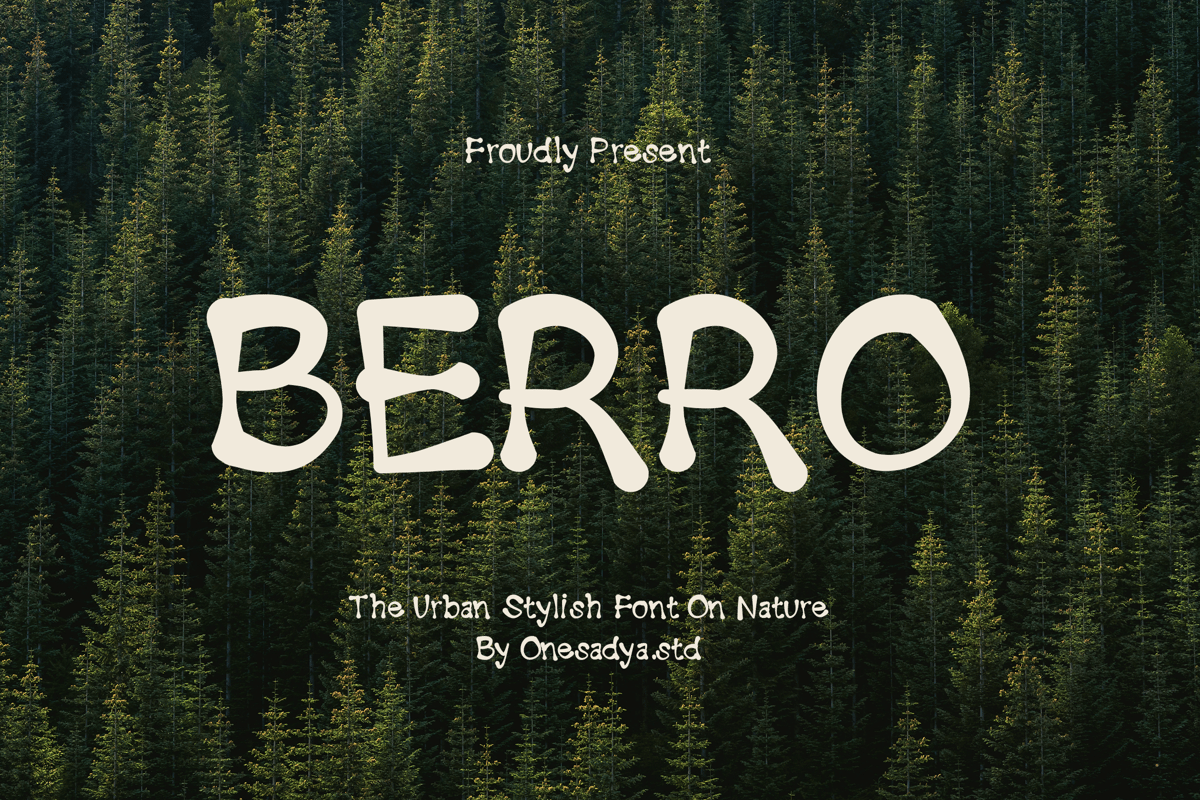
Berro – Nature Display Font
Bring the raw, organic spirit of nature to life with Berro — a handcrafted display font built for bold, earthy designs.
Berro is a unique hand-drawn display typeface inspired by the beauty, simplicity, and organic character of the natural world. Its expressive letterforms and handcrafted details deliver a warm, playful, and authentic personality that stands out in any creative project.
Whether you're building a brand identity, designing packaging, or crafting social media visuals, Berro adds a distinctive handmade touch that feels genuinely connected to nature.
Perfect for:
- Nature & Organic Branding
- Eco & Sustainable Products
- Botanical Projects
- Handmade Products
- Packaging & Labels
- Logo & Brand Identity
- Posters & Flyers
- Social Media Designs
- Outdoor & Adventure Projects
- Farm & Garden Branding
- Clothing & Lifestyle Brands
- Quotes & Typography Artwork
- Editorial & Creative Designs
Berro is a versatile display typeface for designers who want to bring an organic, handcrafted, and nature-inspired atmosphere to their work. Let Berro carry the wild, creative spirit of nature into your next design.